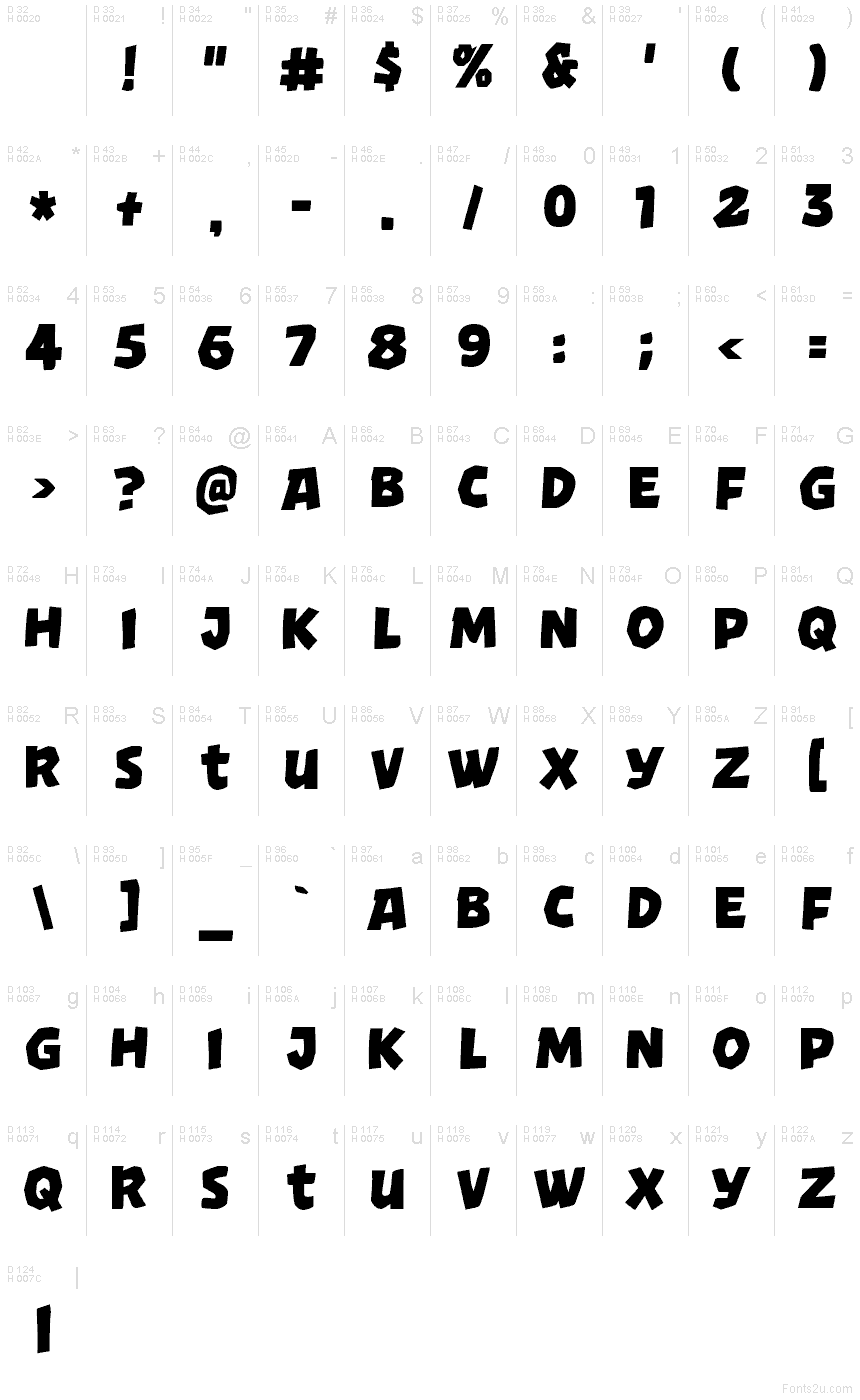
Turbo Jungle font by BlackFridayFont FMF is a free bold cartoon display font. Built around punchy, hand-cut shapes, it thumps across the line with thick, inky strokes and soft, leafy edges. The rhythm is bouncy without getting messy, and the chunky counters keep it loud yet readable, even at smaller headline sizes.
Using Turbo Jungle, headlines feel energetic and mischievous-great for kids’ branding, snack packaging, adventure posters, mobile game titles, YouTube thumbnails, and party invites. This free font loves all caps with a touch of extra tracking, and it pairs nicely with a clean rounded sans for body copy to keep the chaos charming, not chaotic.